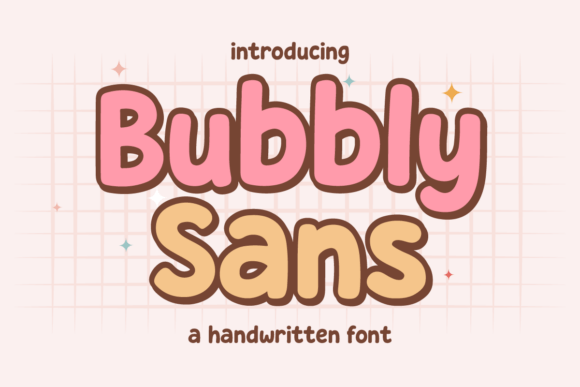
The Sweetest Font You’ll Ever Meet: Bubbly Sans
I’ll never forget the time I was working on a nursery decor project for a client’s baby girl. I had all the design elements ready – the pastel colors, the whimsical illustrations, and the cute graphics – but something was missing. The font I was using just didn’t have that special something that would make the design pop. That’s when I stumbled upon Bubbly Sans, and it completely transformed my design.
Bubbly Sans is a sweet, soft, and charming handwritten display font that’s perfect for creators who love girly themes, pastel aesthetics, and adorable visuals. With its rounded shapes and playful vibes, this font brings warmth, friendliness, and cuteness to every design you make.
What Makes Bubbly Sans So Special?
Bubbly Sans lives up to its name, featuring rounded, soft, and voluminous letterforms that are utterly delightful and reminiscent of a child’s handwriting. This adorable font has a whimsical, hand-drawn feel with soft, chunky edges, making it ideal for projects where warmth and approachability are key.
- ✨ Rounded and playful letterforms that add a touch of whimsy to your designs
- ✅ Soft and chunky edges that give your text a friendly and approachable feel
- 💕 Perfect for girly themes, pastel aesthetics, and adorable visuals
What I Love About Bubbly Sans
- ✨ The font’s playful charm and authenticity make it perfect for designs that need a personal touch
- ✅ The slight imperfections in the handwriting add to its whimsical feel
- 💖 It’s perfect for creating engaging graphics for social media, nursery decor, children’s product packaging, and crafting projects
⚠️ One thing to note is that Bubbly Sans can be a bit overused in some designs, so make sure to balance it with other design elements. Additionally, the font may not be suitable for very formal or professional designs.
🤔 Some users may find that the font’s rounded edges can make it difficult to read in small sizes.
Bubbly Sans features a range of OpenType features and glyphs that can enhance your designs. Here are a few tips:
- Experiment with different Stylistic Alternates to add more variety to your text
- Use the Swashes feature to add decorative flourishes to your text
The Designer Inspiration Behind Bubbly Sans
Bubbly Sans was designed with the intention of creating a font that’s both playful and charming. The designer wanted to create a font that would evoke the feeling of childhood wonder and magic.
| Font Name | Bubbly Sans Font |
| Author | Inani Type |
| What is Bubbly Sans? | Bubbly Sans is a sweet, soft, and charming handwritten display font designed for creators who love girly themes, pastel aesthetics, and adorable visuals. |
| Is Bubbly Sans suitable for professional designs? | While Bubbly Sans is a beautiful font, it may not be suitable for very formal or professional designs. However, it can be used in professional designs that require a playful and creative touch. |
| Is Bubbly Sans available in different languages? | Bubbly Sans may not be available in all languages, but it does feature a range of characters and glyphs that can be used to create multilingual designs. |